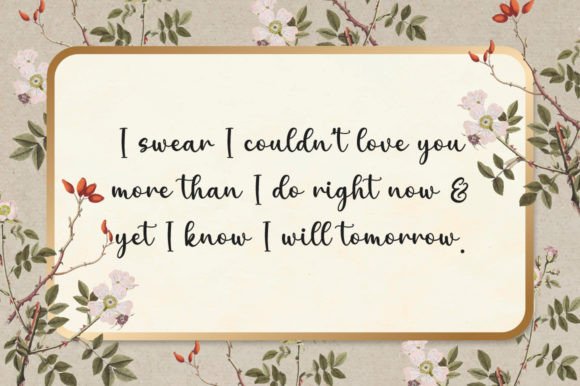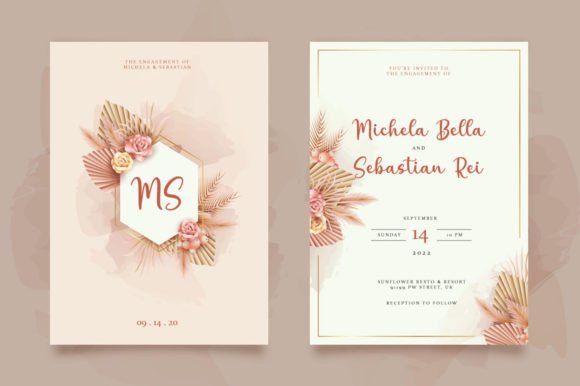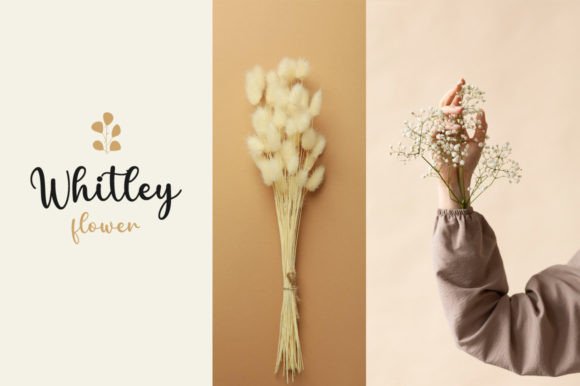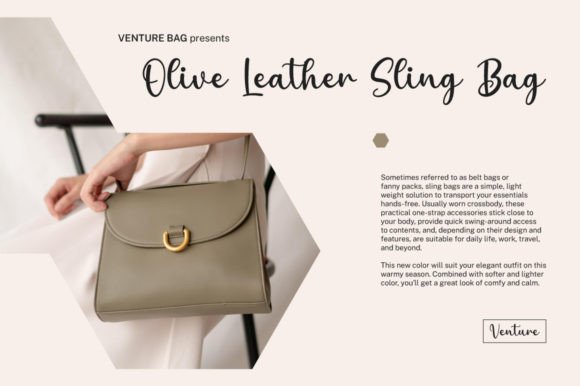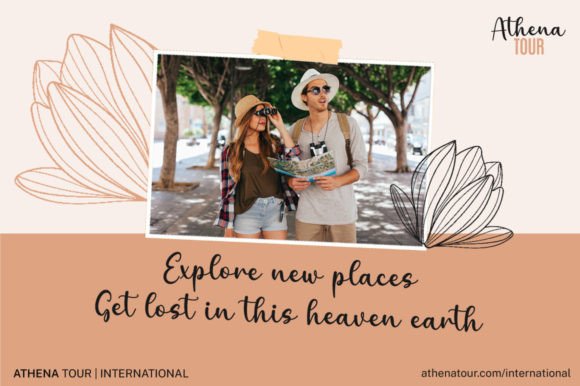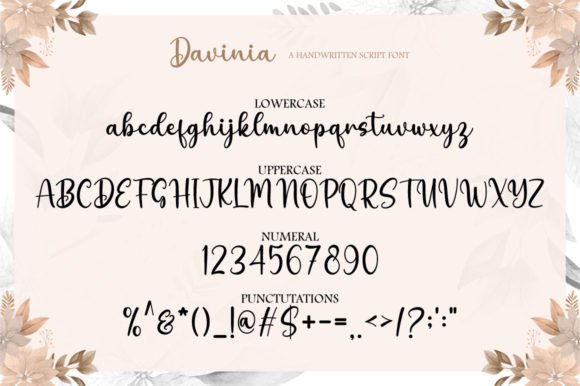
Davinia Font: A Timeless Handwritten Font for Creative Projects
Are you a designer or crafter looking for a font that can add a touch of elegance and sophistication to your creative projects? Look no further than Davinia Font, a lovely and timeless handwritten font that is perfect for creating eye-catching logos, branding, and quotes.
What is Davinia Font?
Davinia Font is a beautiful handwritten font that is designed to bring a touch of classic charm to your designs. With its flowing lines and delicate strokes, Davinia Font is the perfect choice for anyone looking to add a touch of elegance and sophistication to their creative projects.
Key Features of Davinia Font
- Handwritten style: Davinia Font is a handwritten font that is designed to look like it was written with a pen or pencil. This gives it a personal and intimate feel that is perfect for creating logos, branding, and quotes.
- Timeless design: Unlike some fonts that can look dated after a few years, Davinia Font has a timeless design that will never go out of style. This makes it a great investment for designers and crafters who want to create projects that will stand the test of time.
- Elegant and sophisticated: Davinia Font is a elegant and sophisticated font that is perfect for creating high-end designs. Its flowing lines and delicate strokes give it a luxurious feel that is sure to impress.
- Versatile: Davinia Font is a versatile font that can be used for a wide range of creative projects, from logos and branding to quotes and social media graphics.
Why Choose Davinia Font?
So why choose Davinia Font for your creative projects? Here are just a few reasons:
- Easy to read: Despite its elegant and sophisticated design, Davinia Font is easy to read, even at small sizes. This makes it perfect for creating designs that need to be both beautiful and functional.
- Unique: Davinia Font is a unique font that will help your designs stand out from the crowd. Its handwritten style and timeless design make it a great choice for anyone looking to create designs that are a little bit different.
- High-quality: Davinia Font is a high-quality font that is designed to deliver exceptional results. Its clear and crisp lines make it perfect for printing and digital use.
How to Use Davinia Font
Davinia Font is a versatile font that can be used for a wide range of creative projects. Here are just a few ideas to get you started:
- Logos and branding: Use Davinia Font to create beautiful logos and branding materials that will help your business stand out from the crowd.
- Quotes and social media graphics: Davinia Font is perfect for creating eye-catching quotes and social media graphics that will help you connect with your audience.
- Invitations and stationery: Use Davinia Font to create beautiful invitations and stationery that will add a touch of elegance and sophistication to your correspondence.
In conclusion, Davinia Font is a lovely and timeless handwritten font that is perfect for creating eye-catching logos, branding, and quotes. Its elegant and sophisticated design, combined with its versatility and high-quality lines, make it a great choice for designers and crafters who want to create beautiful and effective designs. So why not give Davinia Font a try today and see the difference it can make in your creative projects?
Whether you’re a seasoned designer or a crafty DIY enthusiast, Davinia Font is a great addition to your font collection. Its timeless design and elegant lines make it a versatile font that can be used for a wide range of creative projects. So go ahead, get creative, and see what amazing designs you can create with Davinia Font!